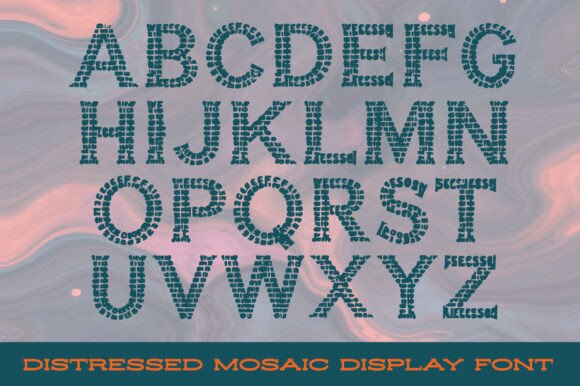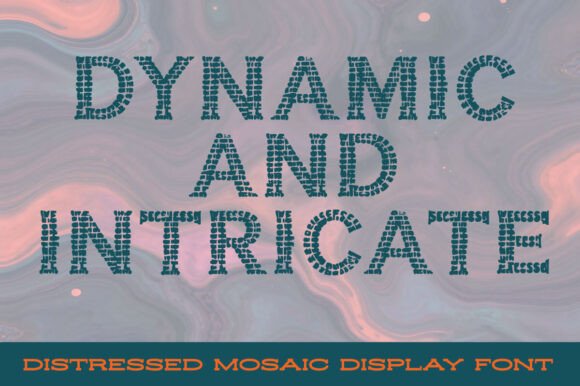
Discovering the Beauty of Mosaical Font
Have you ever found yourself staring at a blank canvas, searching for the perfect font to bring your creative vision to life? It’s that moment of inspiration when everything falls into place – the colors, the shapes, the textures – and you know you’ve stumbled upon something truly special. For designers, this moment is what makes all the hard work worth it, and it’s exactly what the Mosaical Font offers.
As a high-quality design resource, Mosaical Font is more than just a typeface – it’s an experience. With its intricate, layered aesthetic and unique patterns, it adds a level of depth and visual intrigue that’s hard to find elsewhere. Whether you’re working on a creative project that demands attention or simply need a font that stands out from the crowd, Mosaical Font is the perfect choice.
Key Features of Mosaical Font
- Transparency option, allowing for a transparent background in design.
Honest Review: Mosaical Font
I recently had the chance to work with the Mosaical Font, and I must say it’s been a game-changer for my creative projects. The high quality of this design resource is immediately apparent, with its unique blend of styles and textures.
- ✨ The transparent background allows for seamless integration into various design scenarios.
- ✨ Its versatility makes it perfect for a wide range of creative projects, from graphics to web design.
- ⚠️ The font can be quite busy, making it difficult to read in certain contexts.
Overall, I’m thoroughly impressed with the Mosaical Font. Its unique style and high quality make it a valuable addition to any designer’s toolkit. While it may have some limitations, I believe the benefits far outweigh the drawbacks. If you’re looking for a creative and effective design resource, I highly recommend giving the Mosaical Font a try.
The Mosaical Font is a high-quality design resource perfect for adding a unique touch to your creative project. With a transparent background, this font can be easily layered and manipulated in various design applications.
Experiment with layer blending modes and opacity settings to achieve unique effects. Combine the Mosaical Font with other design elements, such as shapes and textures, to create visually striking compositions.
The Mosaical Font is ideal for branding, packaging design, and creative projects where a distinctive, eye-catching font is required. With its transparent background and versatility, the Mosaical Font is a valuable addition to any design library.
Alternatives to Mosaical Font
2. Glitch Sans
Glitch Sans is a modern, high-quality font with a glitchy aesthetic. It’s perfect for use in creative projects that require a futuristic or tech-inspired look. When to use: For projects that require a futuristic or tech-inspired look, such as sci-fi themed websites, futuristic video games, or tech-related designs.
Can I use the Mosaical Font in combination with other fonts?
Yes, the Mosaical Font is designed to be used in conjunction with other fonts, allowing you to create unique and visually appealing typography for your creative project. You can combine the Mosaical Font with other high-quality fonts to achieve the desired look and feel.